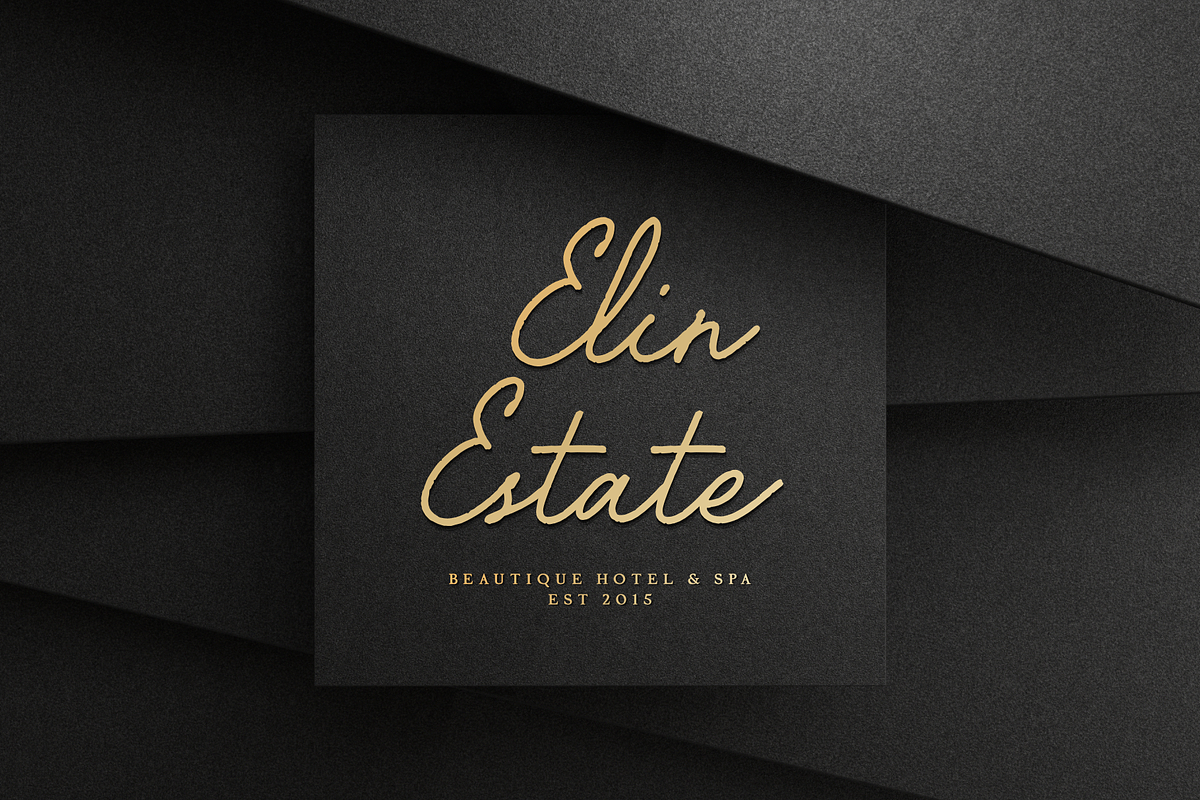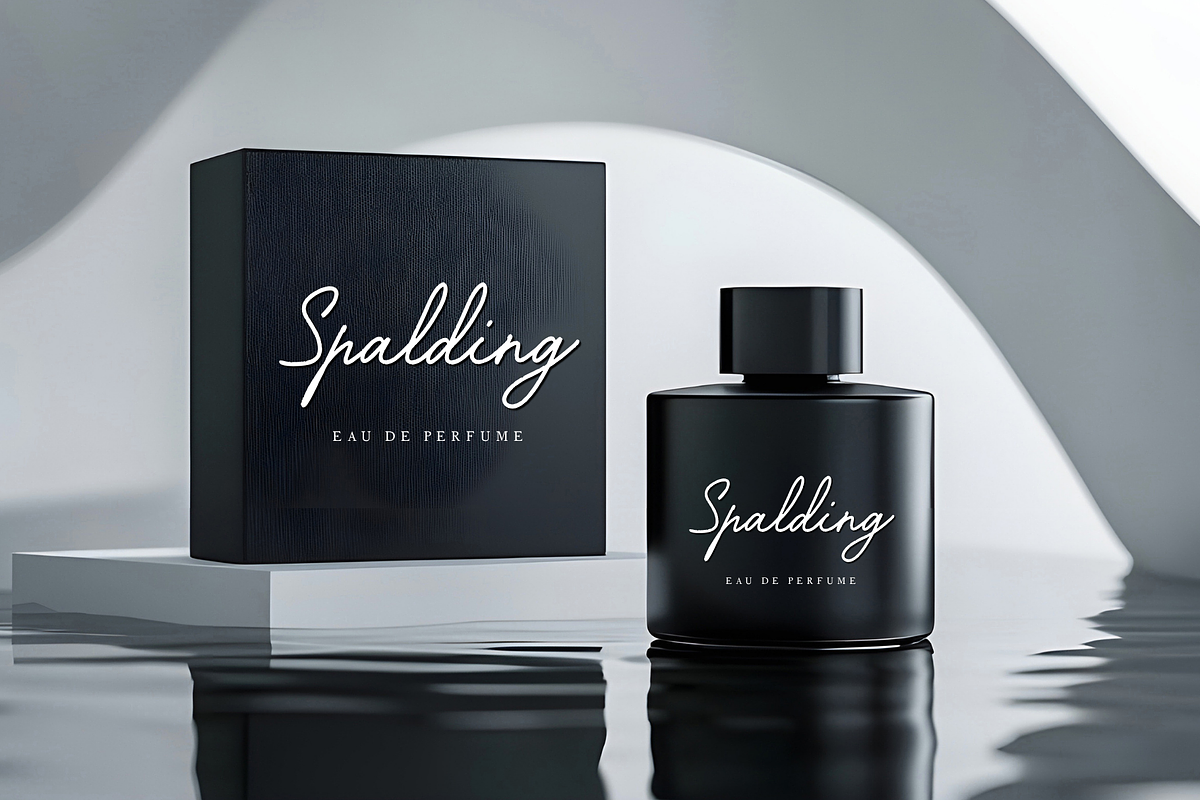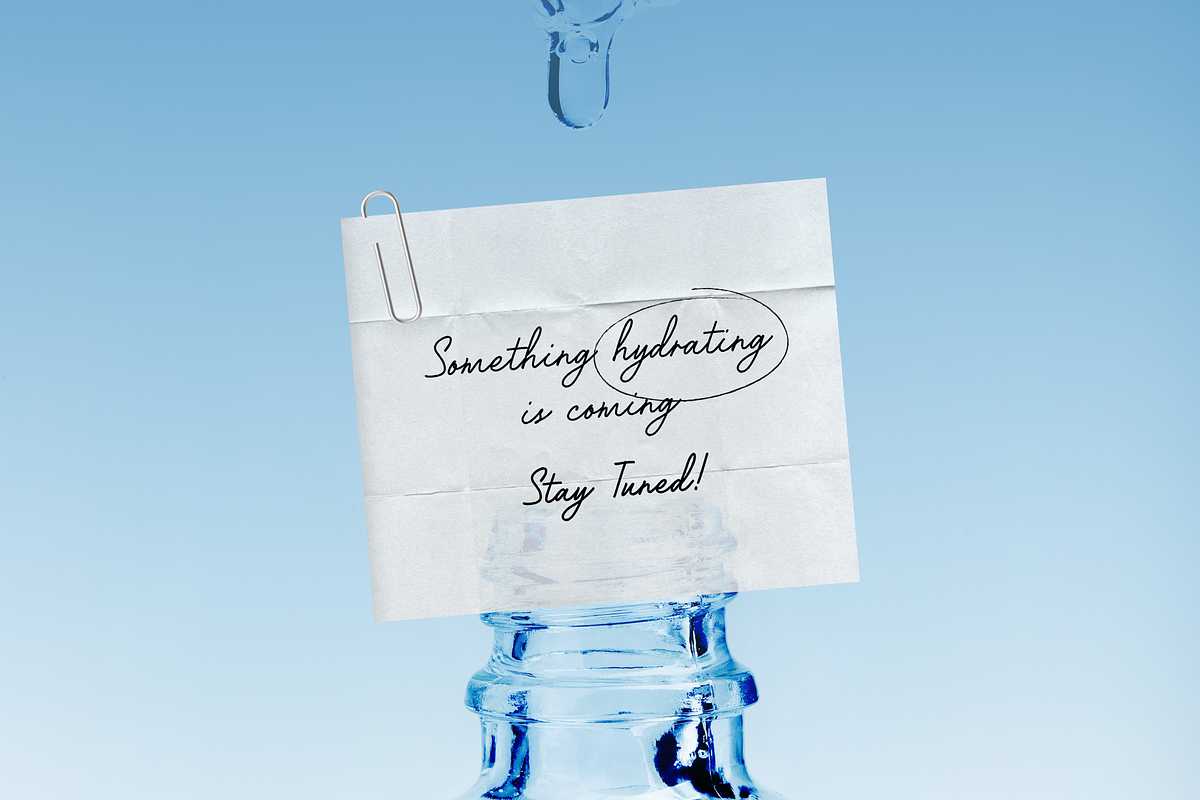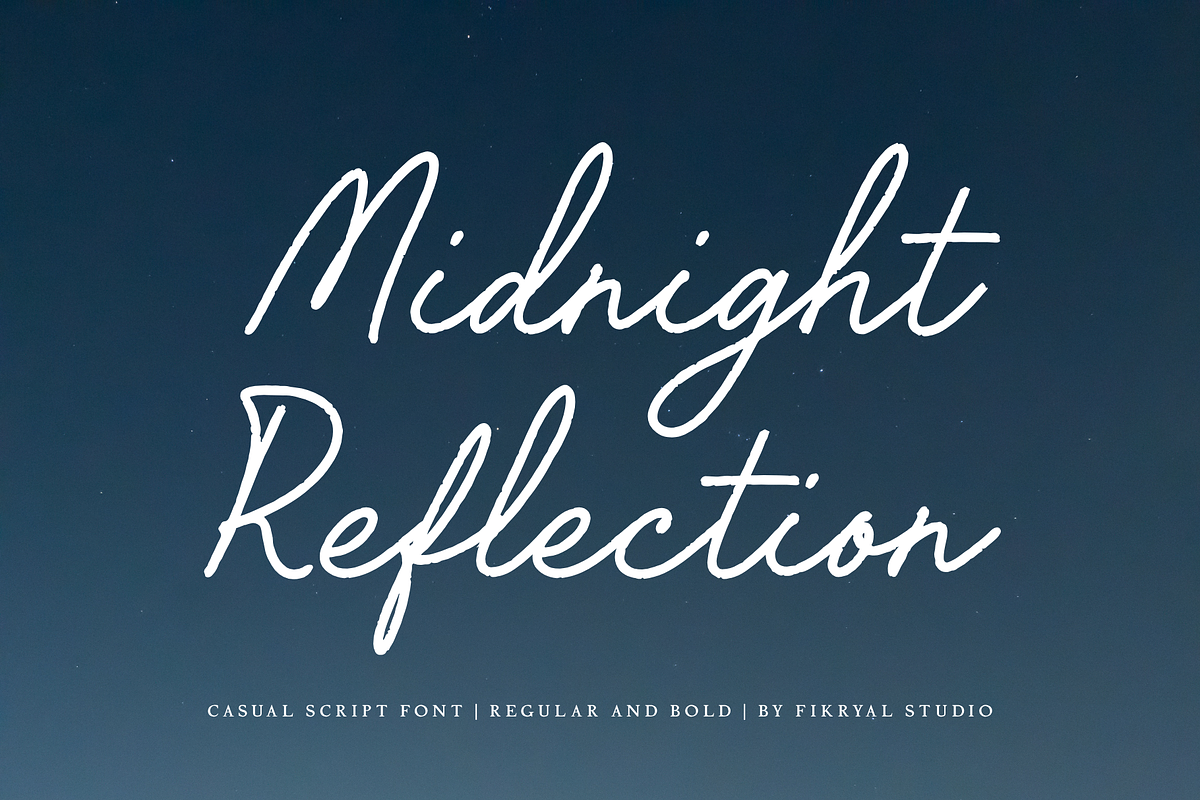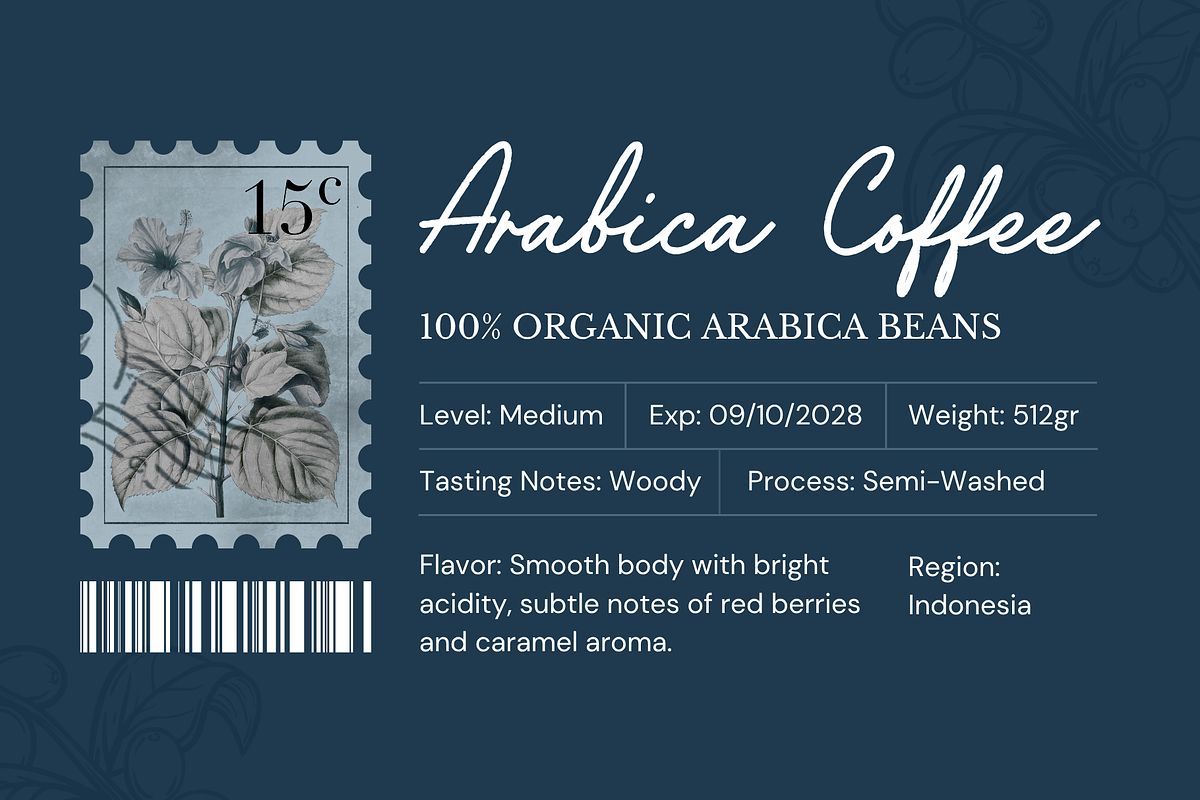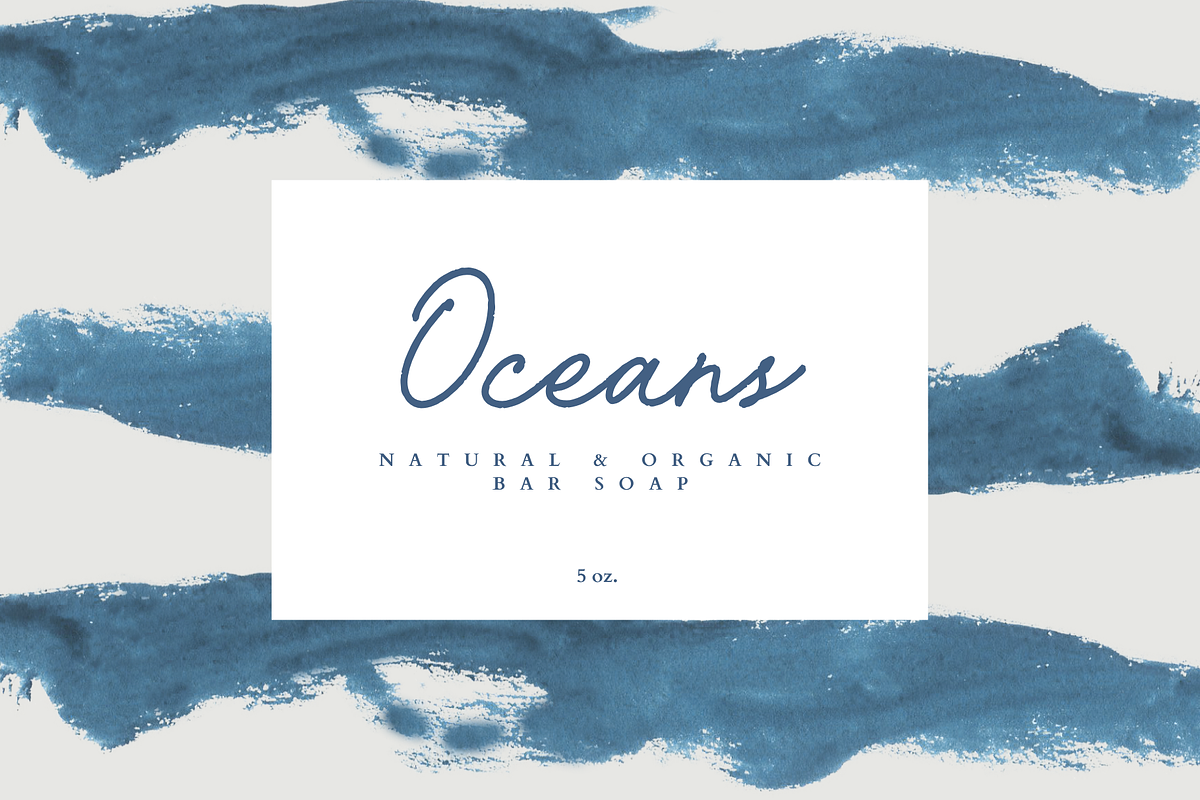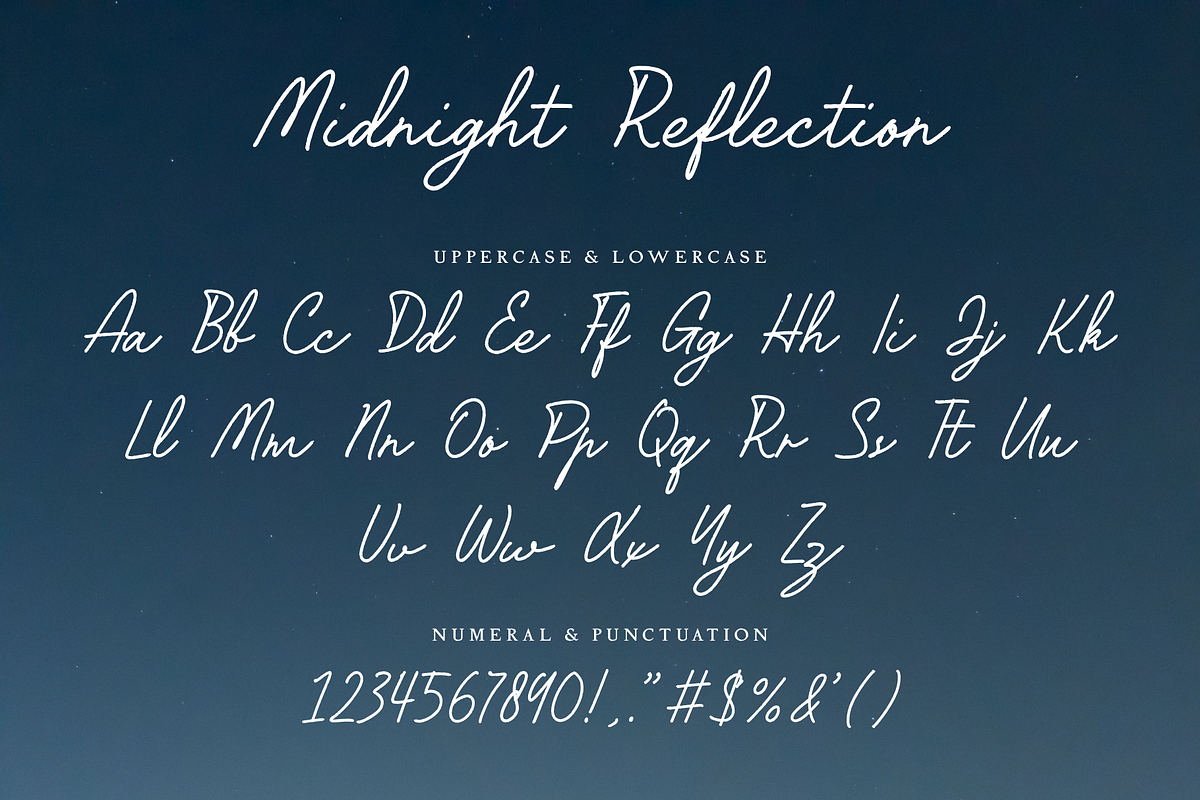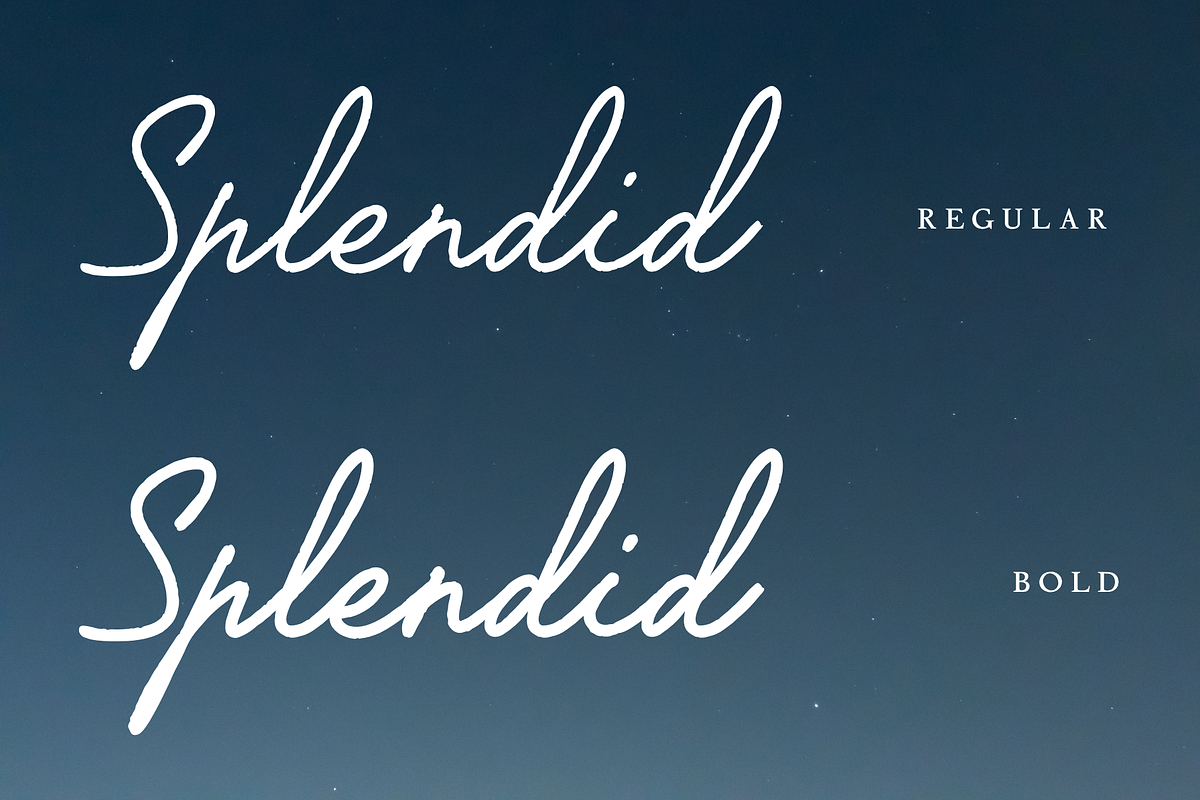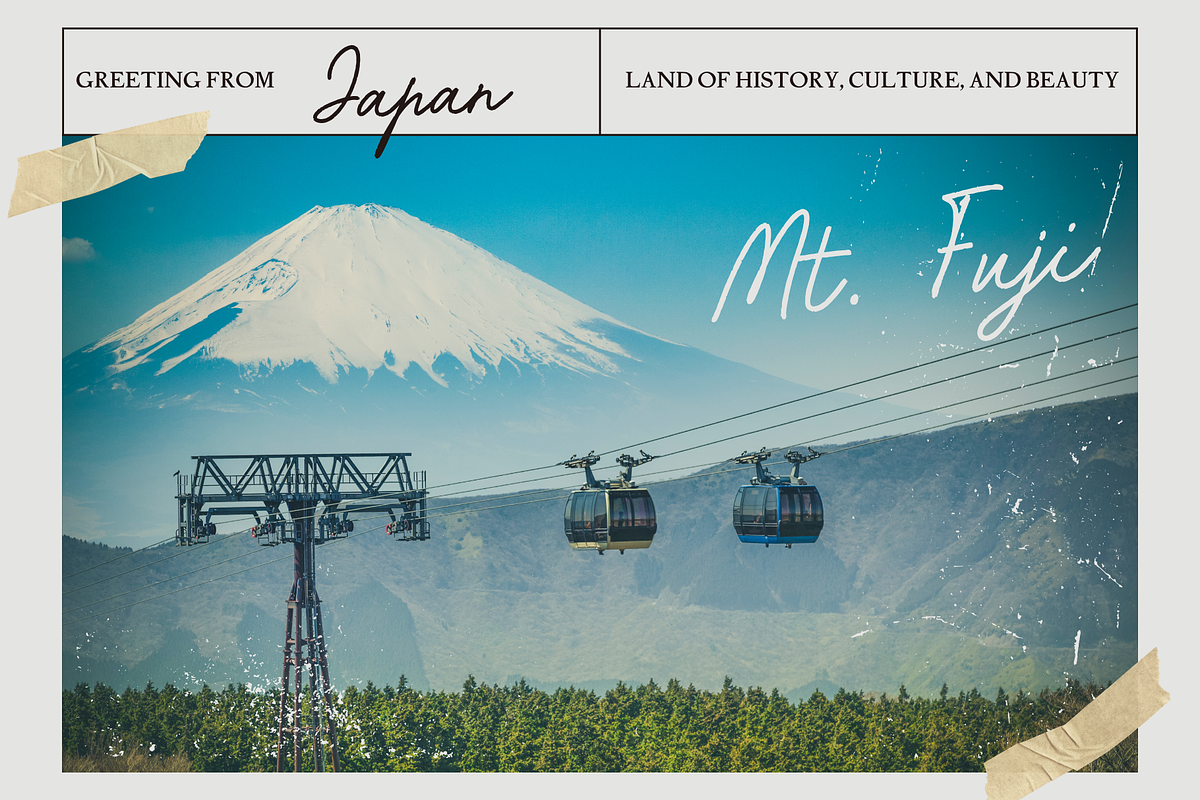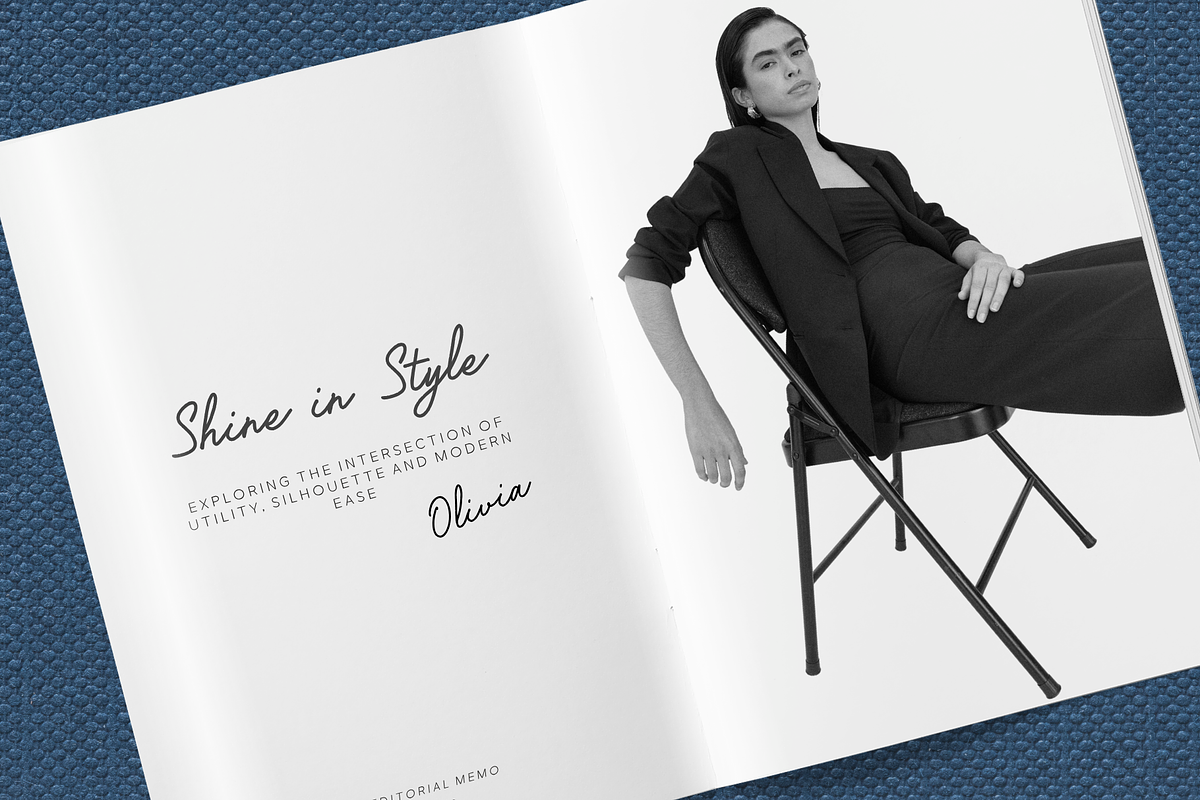
Midnight Reflection – Casual Script
Midnight Reflection is a casual script font that brings a natural handwritten brush feel into every design. Crafted with authentic flowing strokes and organic brush textures, this font creates a warm, expressive, and vintage-inspired appearance that feels personal and timeless.
Designed with two versatile weights — Regular and Bold — Midnight Reflection gives you flexibility for both elegant branding and strong eye-catching headlines. The natural brush movement and smooth letter connections make it perfect for projects that need a handcrafted, artistic, and genuine touch.
Whether you are creating branding, logos, packaging, social media content, posters, apparel, invitations, or product labels, Midnight Reflection delivers a stylish script personality with a rustic and nostalgic atmosphere.
Regular & Bold Styles
Natural Brush Handwritten Look
Vintage & Casual Script Style
Vintage Branding
Coffee Shop Branding
Clothing & Merchandise
Social Media Quotes
Wedding Invitations
Photography Watermarks
Poster & Editorial Design
Handmade Product Labels